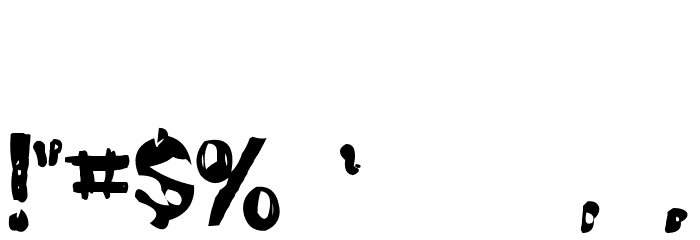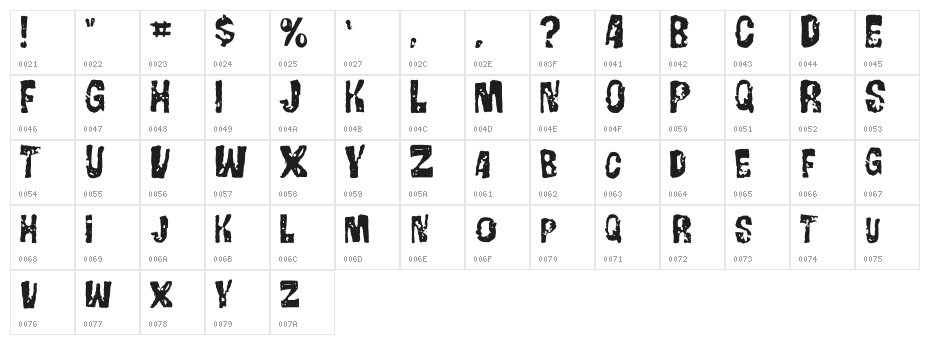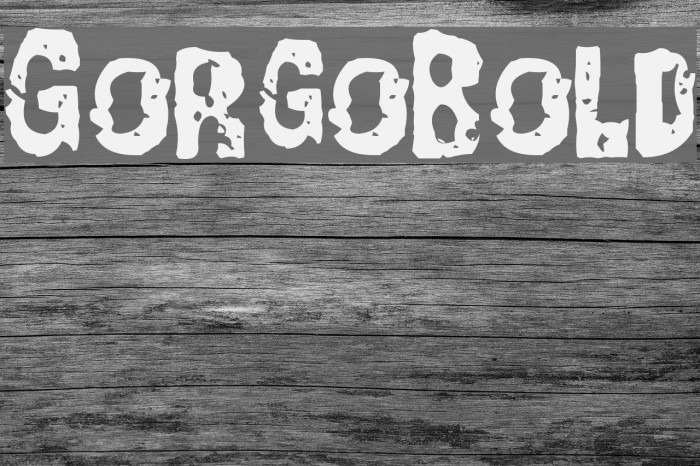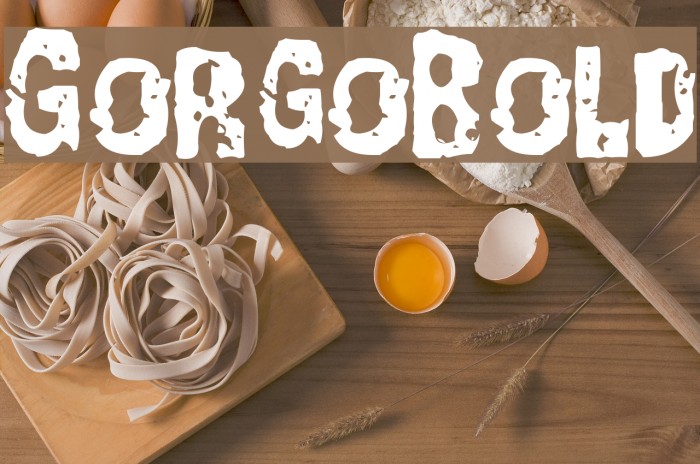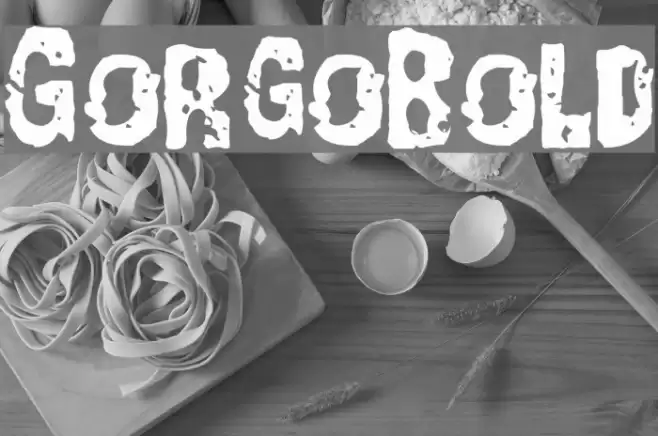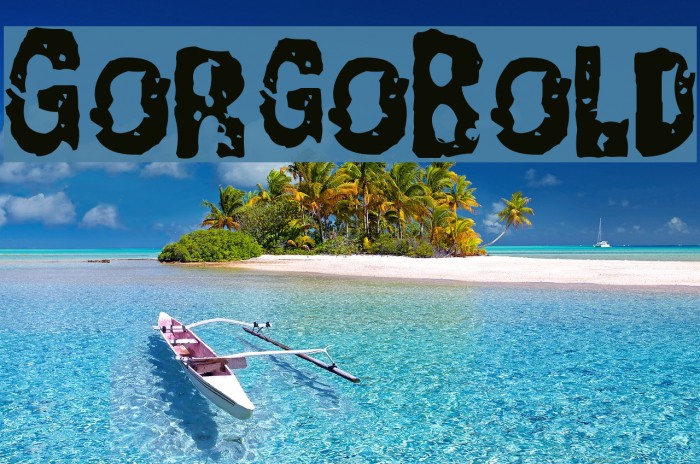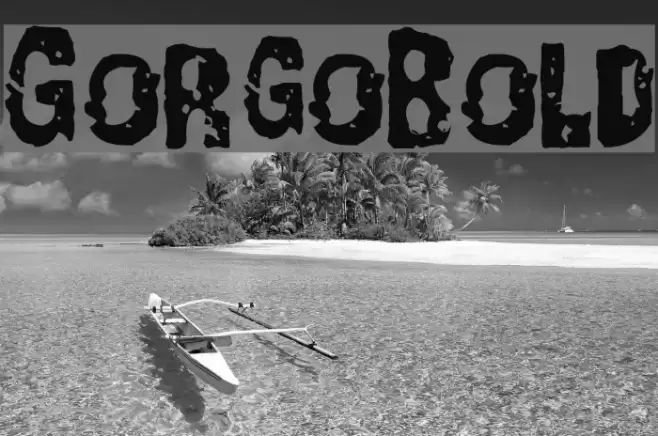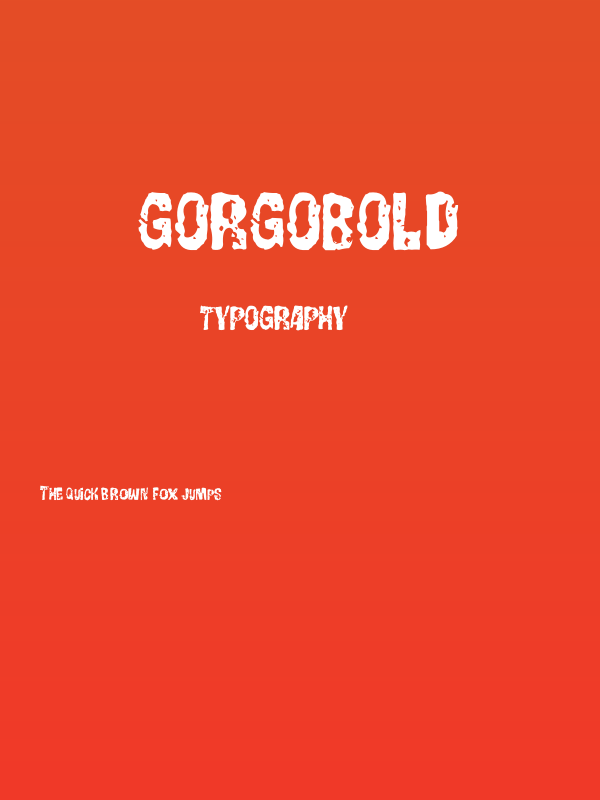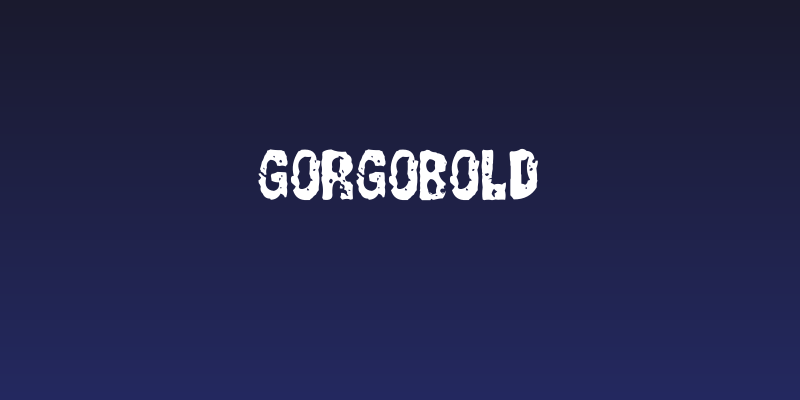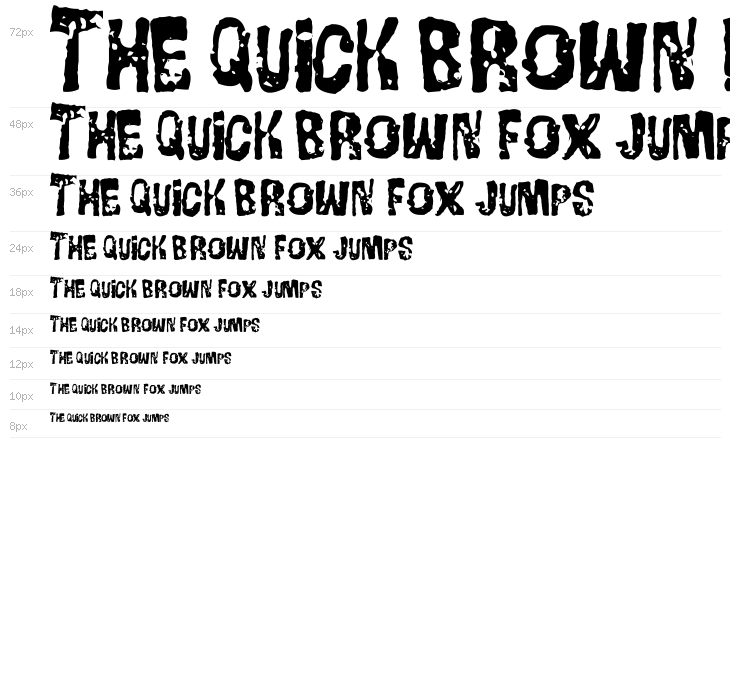
GorgoBold Font
GorgoBold Description
This font features a bold, distressed style with a rugged, textured appearance. The characters are heavily stylized, giving them a worn, grunge-like effect that suggests a sense of decay or erosion. The uppercase letters are prominent and impactful, making them suitable for attention-grabbing headlines or titles. The irregular edges and varying thicknesses of the strokes contribute to its unique, edgy aesthetic. This font is ideal for projects that require a strong, unconventional look, such as posters, album covers, or branding for alternative or edgy products.
| Proposed Projects | Posters, album covers, edgy branding, alternative product packaging. |